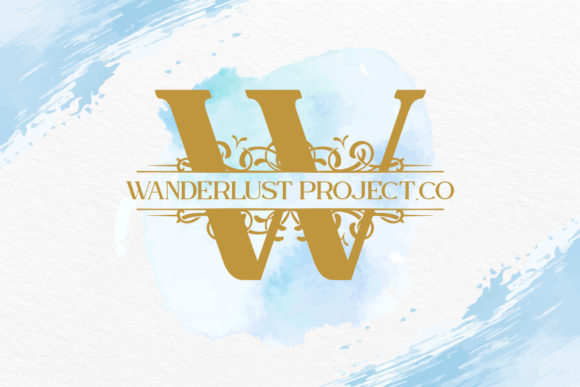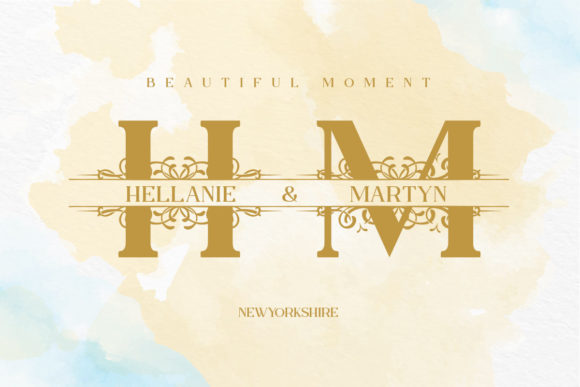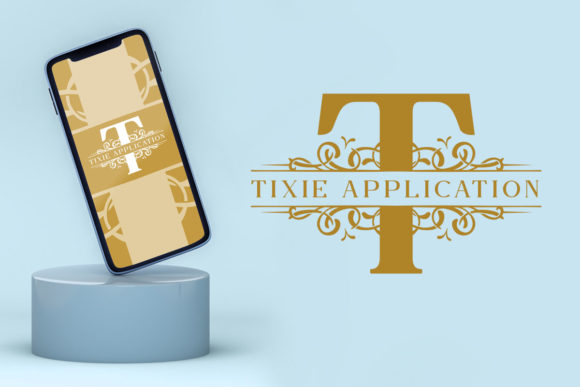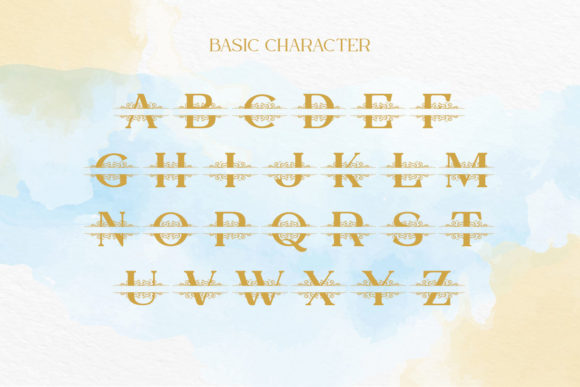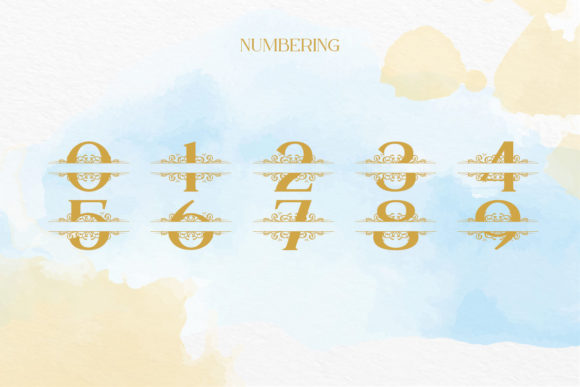
Introduction to Nayla Monogram Font
Remember the moment when you envisioned your dream project, the one that would finally put your creative skills to the test? The one that would make all your hard work shine? For designers, that moment often comes when they’re on the hunt for the perfect font to elevate their design. And that’s exactly where the Nayla Monogram Font comes in – a true game-changer that can take your creative project to new heights.
This elegant and unique display font is a masterclass in design, offering a high-quality solution for any designer looking to add a touch of sophistication to their work. With its transparent background and clean lines, the Nayla Monogram Font is a versatile design resource that can be used in a variety of contexts, from weddings to branding projects. And the best part? It’s available for a free download, making it an accessible choice for designers of all levels.
Key Features of Nayla Monogram Font
- High-quality, elegant design perfect for creative projects and personal branding.
- Comes with a transparent background, making it easy to use as a design resource in various applications.
- Unique, customizable monogram design that can be easily adapted to fit individual styles and preferences.
- Perfect for personalizing gifts, stationery, and other creative projects, adding a touch of elegance and sophistication.
Honest Review: Nayla Monogram Font
I recently stumbled upon the Nayla Monogram Font, and I must say, it’s a fantastic addition to any designer’s toolkit. This beautiful font is perfect for creative projects that require a touch of elegance and sophistication.
What works well: ✨ The Nayla Monogram Font has a high-quality design that makes it ideal for use on transparent backgrounds. It’s also completely free to download, making it a great resource for designers on a budget. The font’s versatility allows it to be used in a variety of contexts, from branding to digital art.
Some limitations: ⚠️ While the font itself is beautiful, it may not be suitable for all types of projects. The monogram design can be a bit too ornate for some applications, and the font may not be as readable in smaller sizes.
Overall, I’m really impressed with the Nayla Monogram Font. It’s a high-quality design resource that’s perfect for designers looking to add a touch of elegance to their creative projects. With its transparent background capabilities and free download option, it’s definitely worth checking out.
- Perfect for creative projects that require a touch of elegance and sophistication
- High-quality design that’s ideal for use on transparent backgrounds
- May not be suitable for all types of projects due to its ornate design
How to Use Nayla Monogram Font
The Nayla Monogram Font is a high-quality design resource perfect for any creative project. Its unique and elegant style makes it ideal for various applications, from personal branding to wedding invitations.
Tips for Getting the Most Out of the Nayla Monogram Font
For a transparent background, use the font on a white or light-colored background to make the text stand out. Experiment with different font sizes and colors to create a unique and eye-catching design.
The Nayla Monogram Font is ideal for various creative projects, including wedding invitations, personal branding, and business cards. It’s also perfect for creating social media graphics, flyers, and brochures.